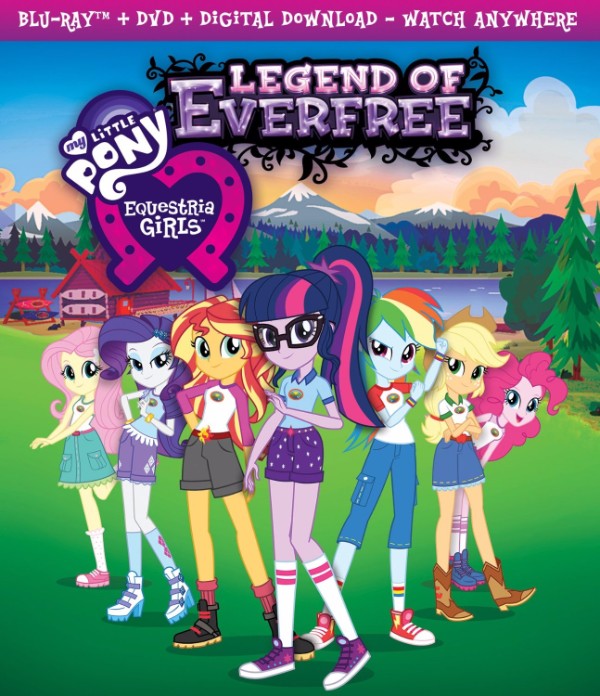
Legend of Everfree Font
AnimationMy Little Pony: Equestria Girls – Legend of Everfree is an animated film that follows the Equestria Girls as they go on a camping trip to a magical summer camp called Camp Everfree which becomes plagued by bizarre magical events.
My Little Pony: Equestria Girls – Legend of Everfree title in the poster is set in a solid and playful display typeface called Postino. Tim Donaldson designed Postino inspired by the Courier typewriter typeface.